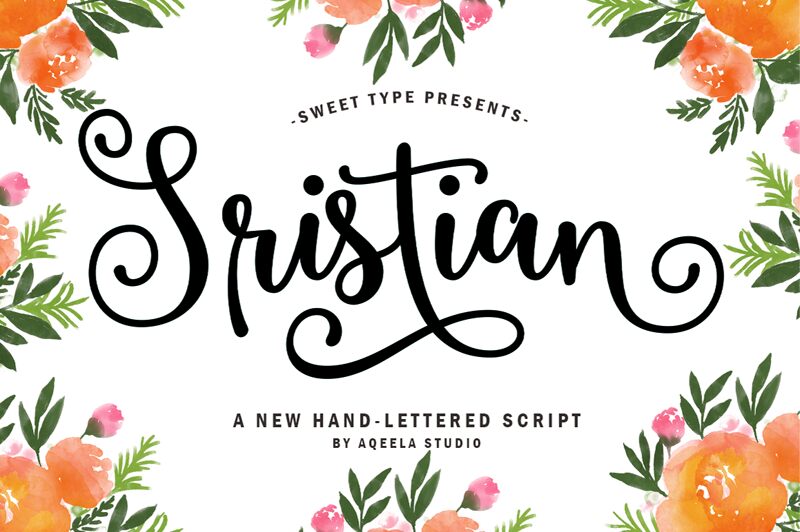
Sristian, the curly calligraphy font designed by Aqeela Studio, is the perfect addition to your creative projects. With its elegant curves and intricate details, this semi-bold typeface brings a touch of sophistication to any design. Whether you're creating wedding invitations, branding materials, or social media graphics, Sristian adds a unique flair that sets your work apart. Its medium width makes it versatile for both headlines and body copy, while its graceful letterforms ensure readability on any platform. Elevate your designs with Sristian – the perfect font for those seeking a touch of whimsy and refinement!